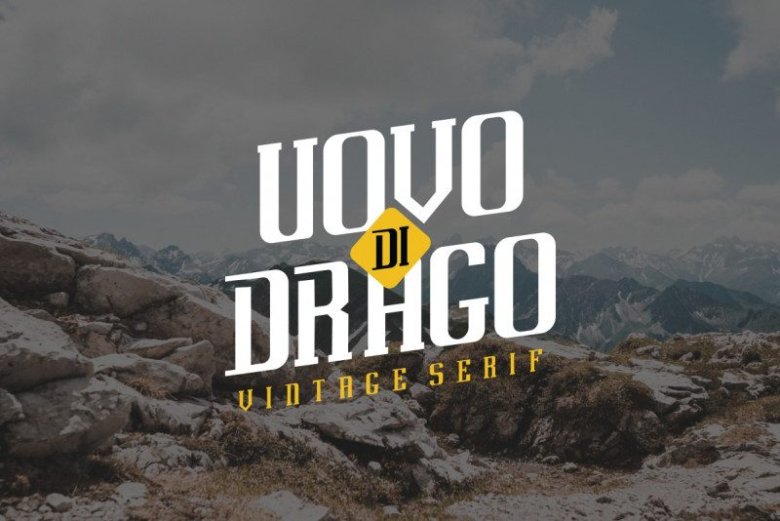
Uovo Di Drago Typeface
Uovo Di Drago means dragon eggs. This is a new modern font . It has 4 unique glyphs styles : Regular, Rough, Italic and outline.
Great for merchandise, branding, logo, stationery, business card, signage, flyer, brochure etc. There are many industries that is suitable for this font : construction, real estate, services, cafe, coffee, music etc